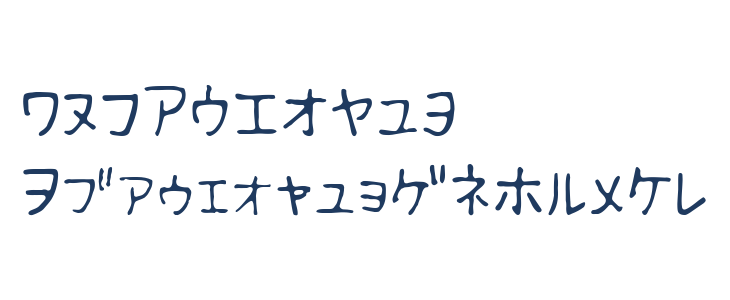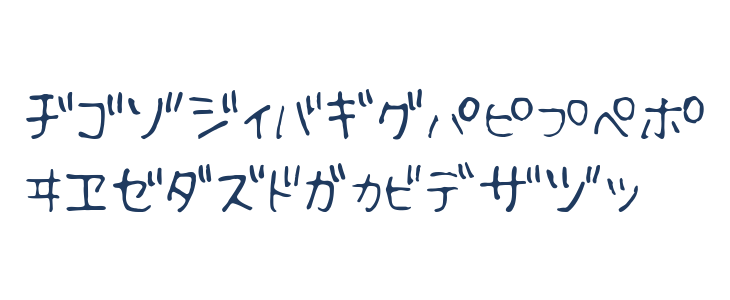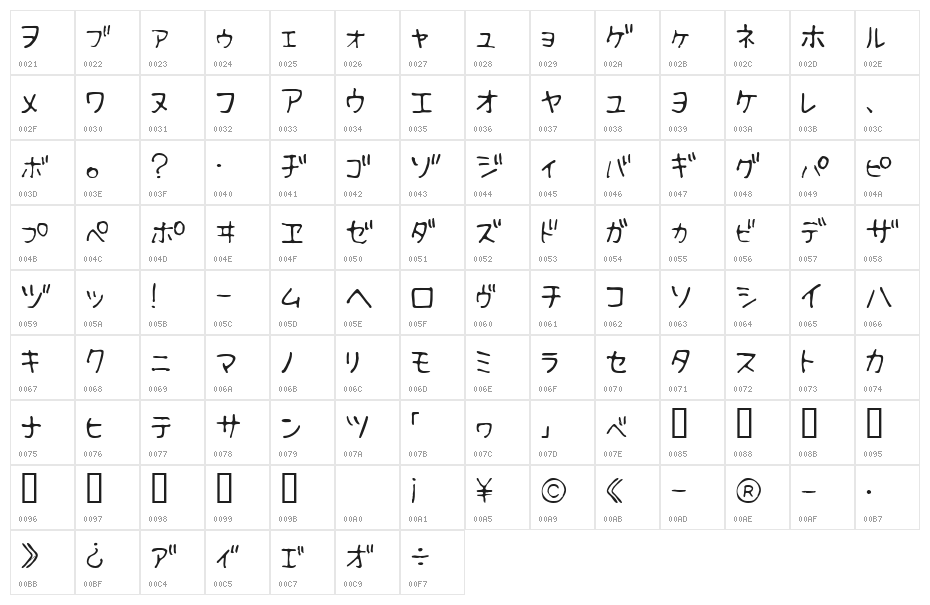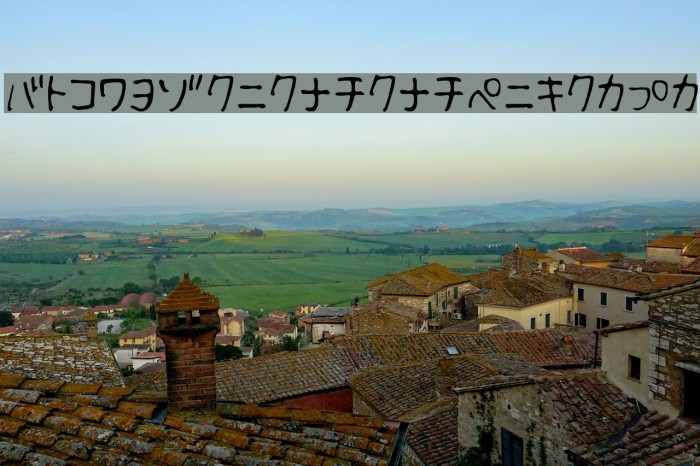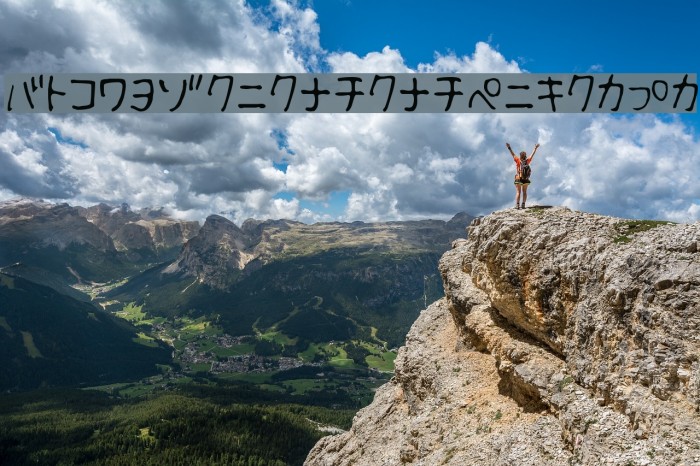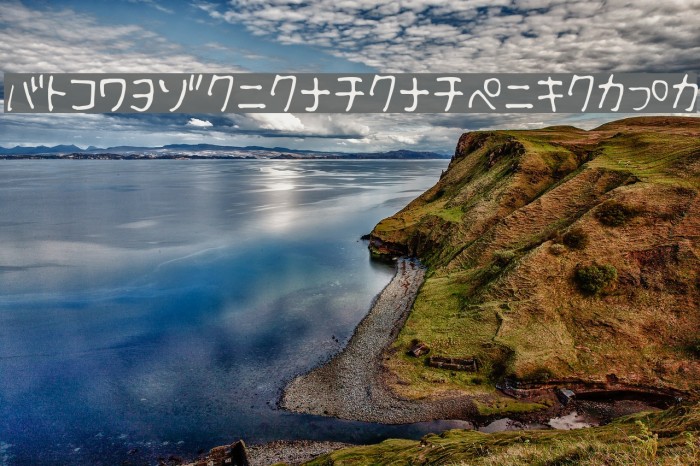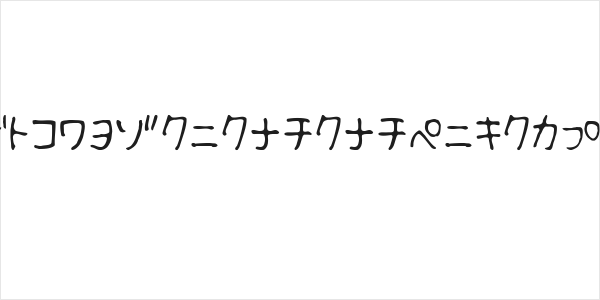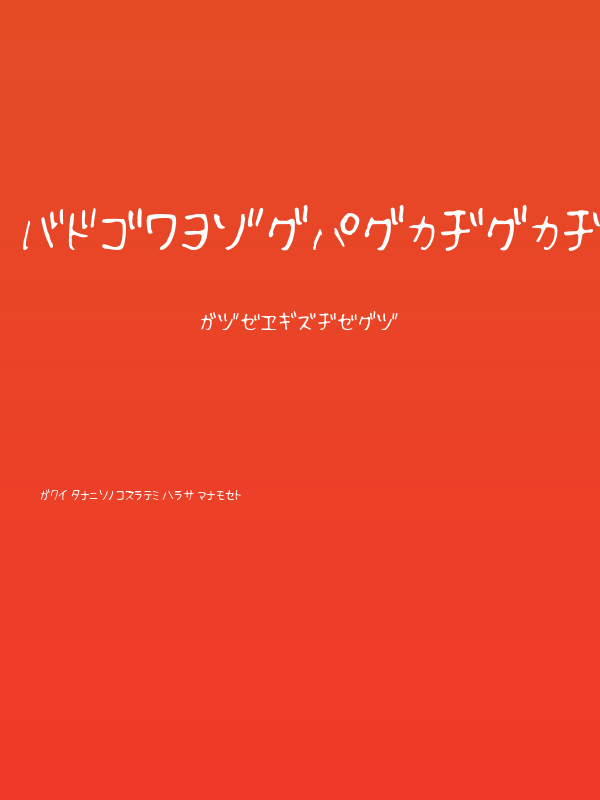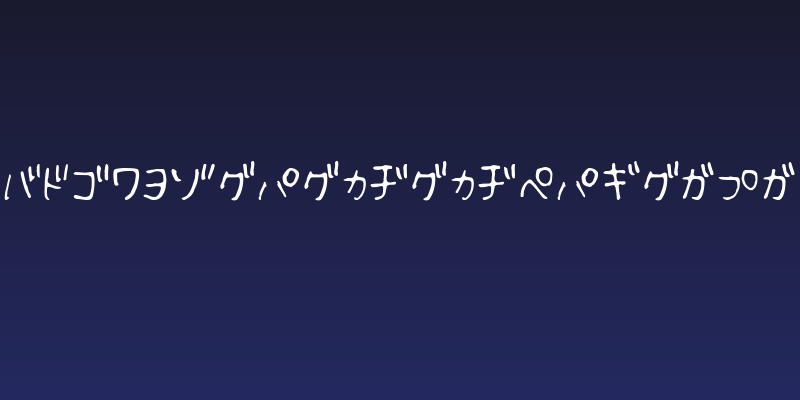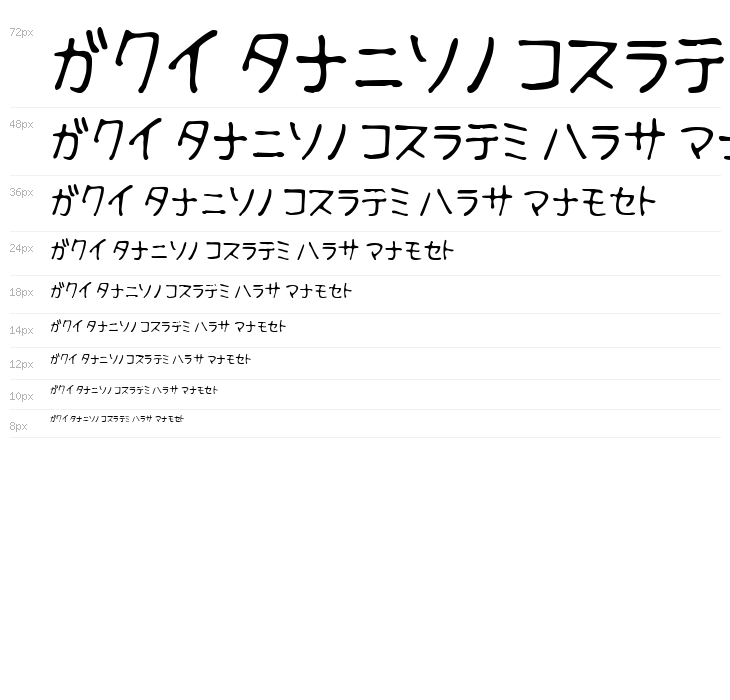
Fsb09ChihuahuaLightKt Font
Fsb09ChihuahuaLightKt Description
This font features a playful and whimsical style, characterized by its irregular and hand-drawn appearance. The strokes are uneven, giving it a casual and informal feel. The characters are slightly tilted and vary in size, adding to the dynamic and lively nature of the font. It includes a mix of curves and sharp angles, creating an interesting visual contrast. This font is suitable for projects that require a fun and approachable aesthetic, such as children's books, greeting cards, or creative branding materials.
| Proposed Projects | Ideal for children's books, greeting cards, creative branding, and playful designs. |